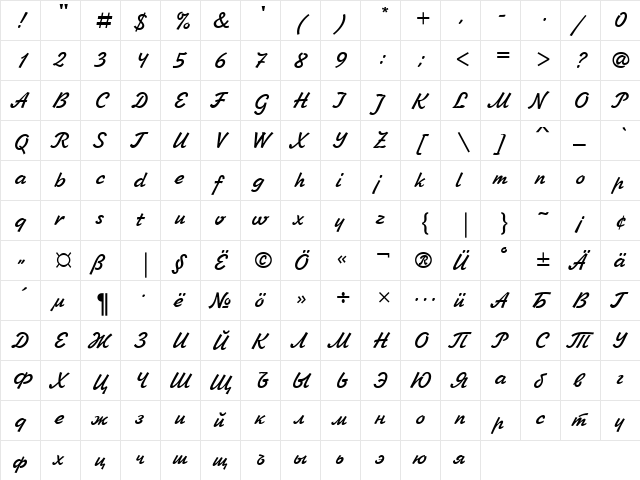
Ukrainian?Present Regular
Design Context for Ukrainian?Present Typeface
Ukrainian?Present takes a measured approach to typography — its balanced proportions and neutral character make it a reliable workhorse for both digital and print work.